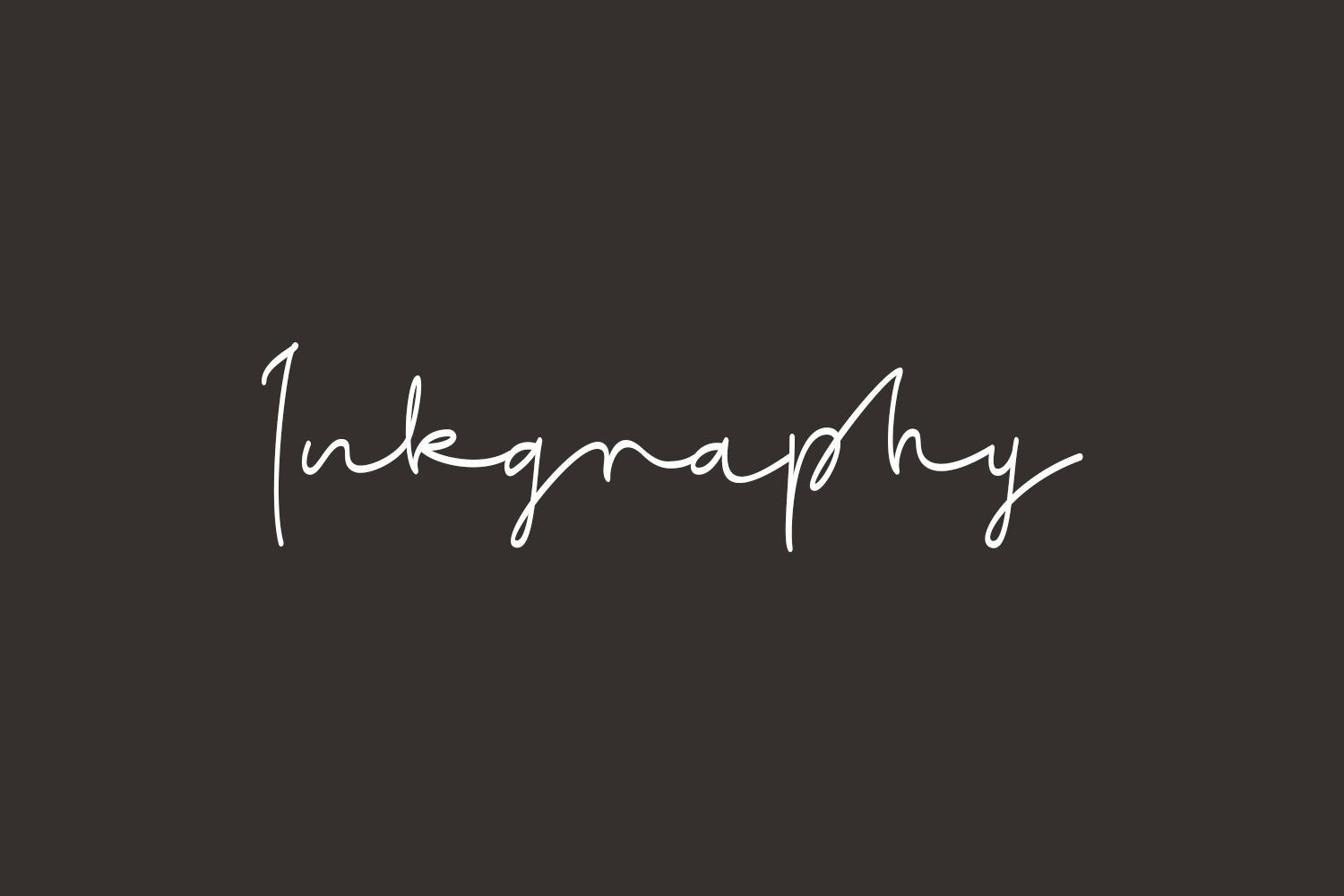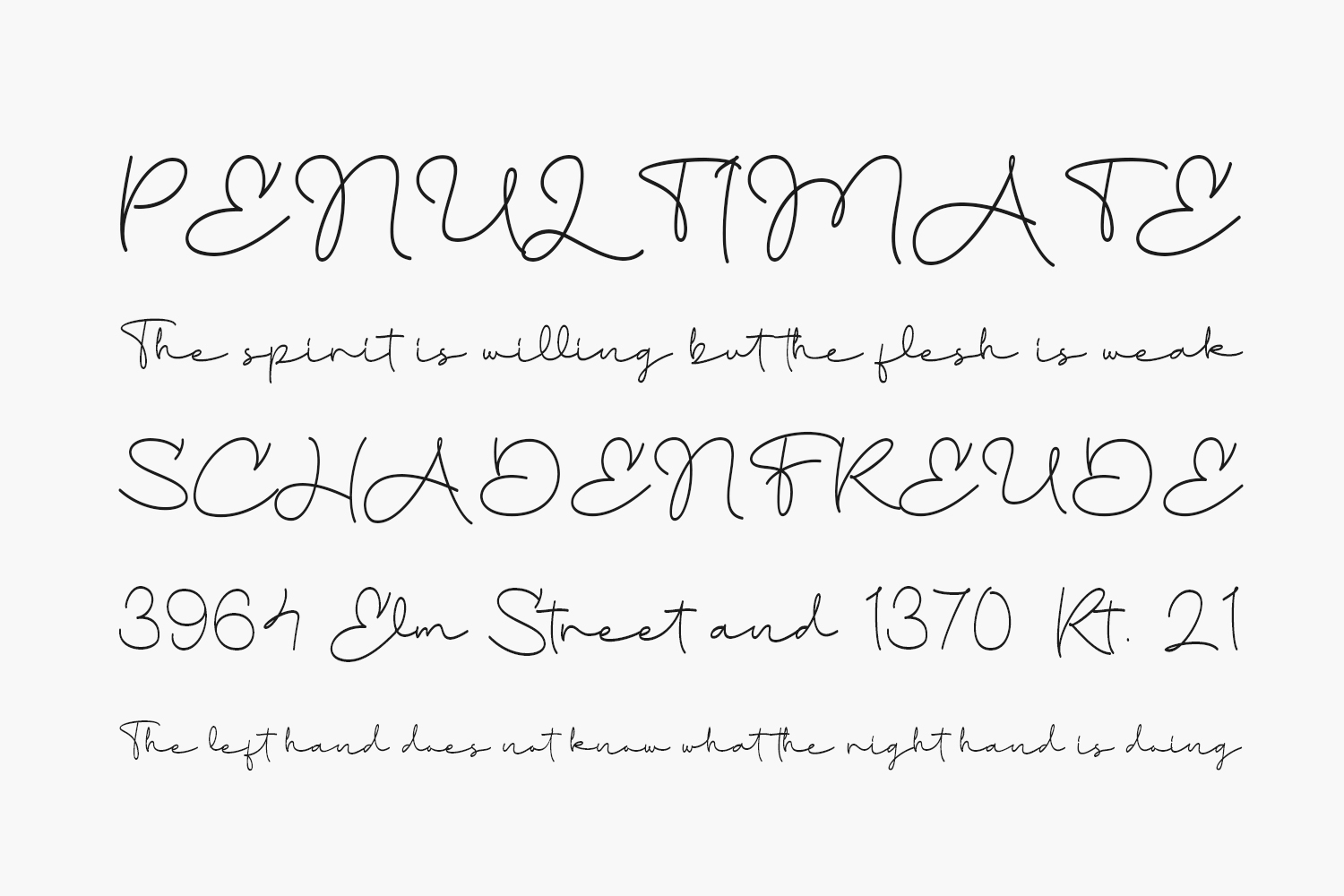
Inkgraphy Free Font is a script calligraphy typeface that features elegant and flowing handwritten strokes. It was created by the designer named Galih Jati, and is available for free download. The font is perfect for use in various design projects such as branding, advertising, packaging, invitations, and more. Inkgraphy Free Font is free for personal use only. Please purchase the full version for commercial use.